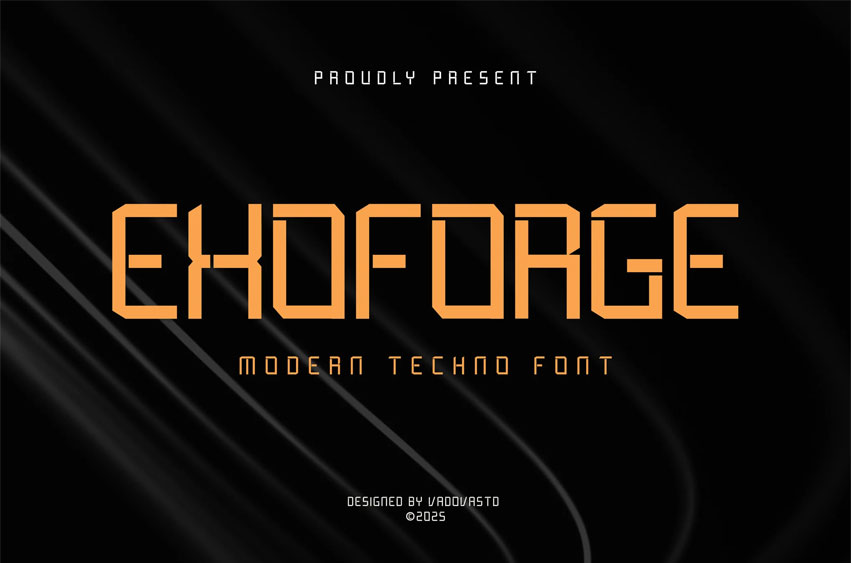
Exoforge Font is a futuristic techno typeface that blends angular geometry with a sleek, modern edge. Inspired by cyberpunk aesthetics, digital interfaces, and sci-fi environments, its precise letterforms and sharp corners create a strong sense of innovation and forward-thinking. Perfect for tech branding, UI design, gaming titles, posters, and modern packaging, Exoforge delivers a bold, high-tech statement.
With its clean structure and commanding presence, this font is designed to elevate any project into the future.